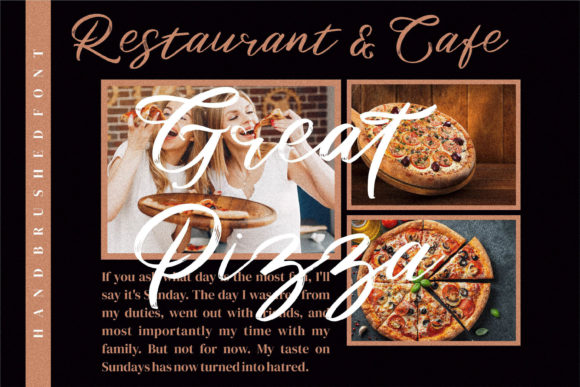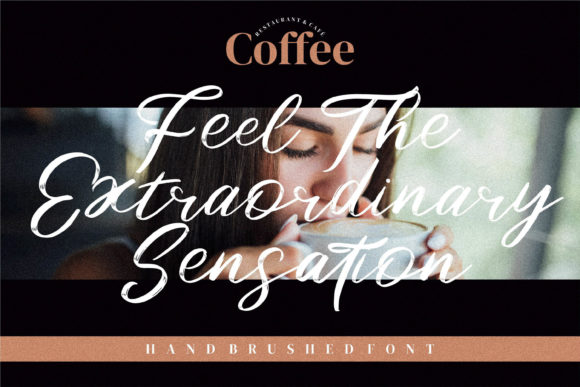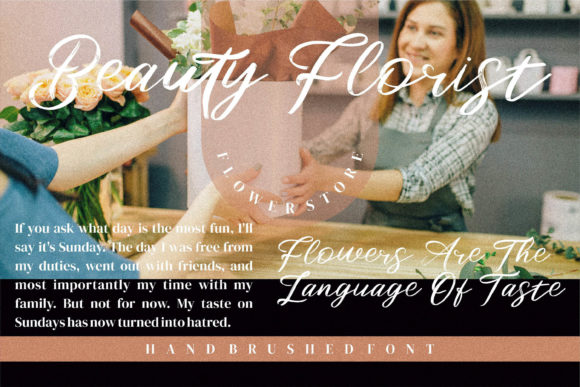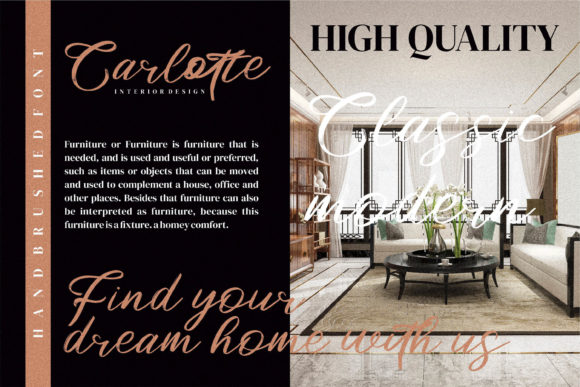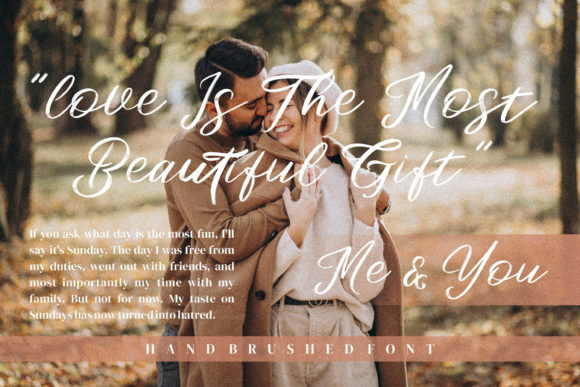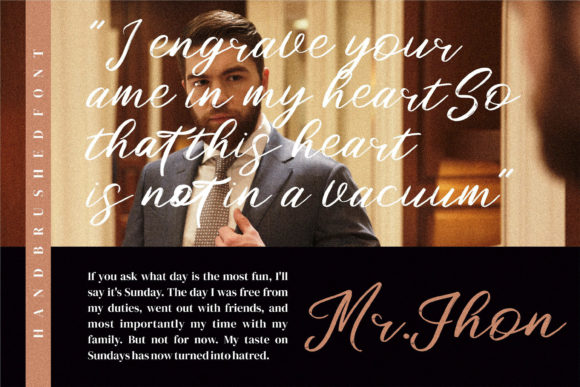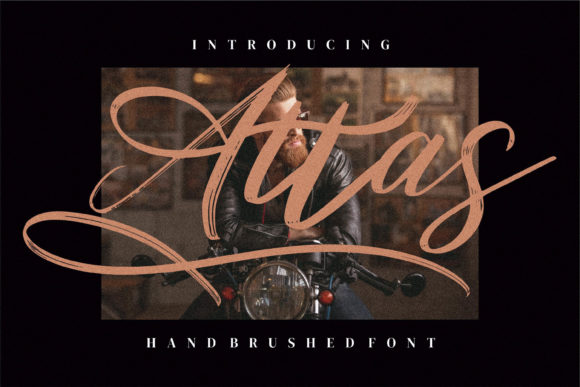
Discover the Elegance of Attas Font: A Lovely Script Font for Your Designs
Are you a designer or crafter looking for a font that can elevate your creative projects? Look no further than Attas Font, a stunning script font that is sure to impress. With its beautiful and well-balanced characters, Attas Font is a versatile choice that can match a wide pool of designs. In this article, we’ll take a closer look at the features of Attas Font and explore how it can enhance your designs.
The Beauty of Attas Font
Attas Font is a lovely and flowing script font that is characterized by its varying baseline, smooth lines, gorgeous glyphs, and stunning alternates. The font’s unique features make it stand out from other script fonts, giving it a distinctive and elegant look. The characters in Attas Font are carefully crafted to ensure that they are well-balanced, making it easy to read and understand.
Key Features of Attas Font
- Varying Baseline: Attas Font features a varying baseline, which gives it a natural and organic look. The baseline of the font is not uniform, creating a sense of movement and fluidity.
- Smooth Lines: The lines in Attas Font are smooth and flowing, making it perfect for designs that require a touch of elegance.
- Gorgeous Glyphs: Attas Font comes with a range of gorgeous glyphs that can be used to add visual interest to your designs.
- Stunning Alternates: The font also features stunning alternates, which allow you to experiment with different variations of the font.
Why Choose Attas Font?
So, why should you choose Attas Font for your designs? Here are just a few reasons:
- Versatility: Attas Font is a versatile choice that can match a wide pool of designs. Whether you’re creating a logo, brochure, or website, Attas Font is a great choice.
- Elegance: Attas Font is an elegant and sophisticated font that can add a touch of luxury to your designs.
- Readability: The font is easy to read and understand, making it perfect for designs that require a clear and concise message.
How to Use Attas Font in Your Designs
Using Attas Font in your designs is easy. Here are a few tips:
- Pair it with Other Fonts: Attas Font can be paired with other fonts to create a unique and interesting look.
- Experiment with Different Sizes: The font looks great in different sizes, so don’t be afraid to experiment.
- Use it for Headings and Titles: Attas Font is perfect for headings and titles, where its elegant and sophisticated look can really shine.
In conclusion, Attas Font is a lovely and flowing script font that is perfect for designers and crafters looking for a elegant and sophisticated font. With its beautiful and well-balanced characters, Attas Font is a versatile choice that can match a wide pool of designs. Whether you’re creating a logo, brochure, or website, Attas Font is a great choice. So why not give it a try and see how it can enhance your designs?